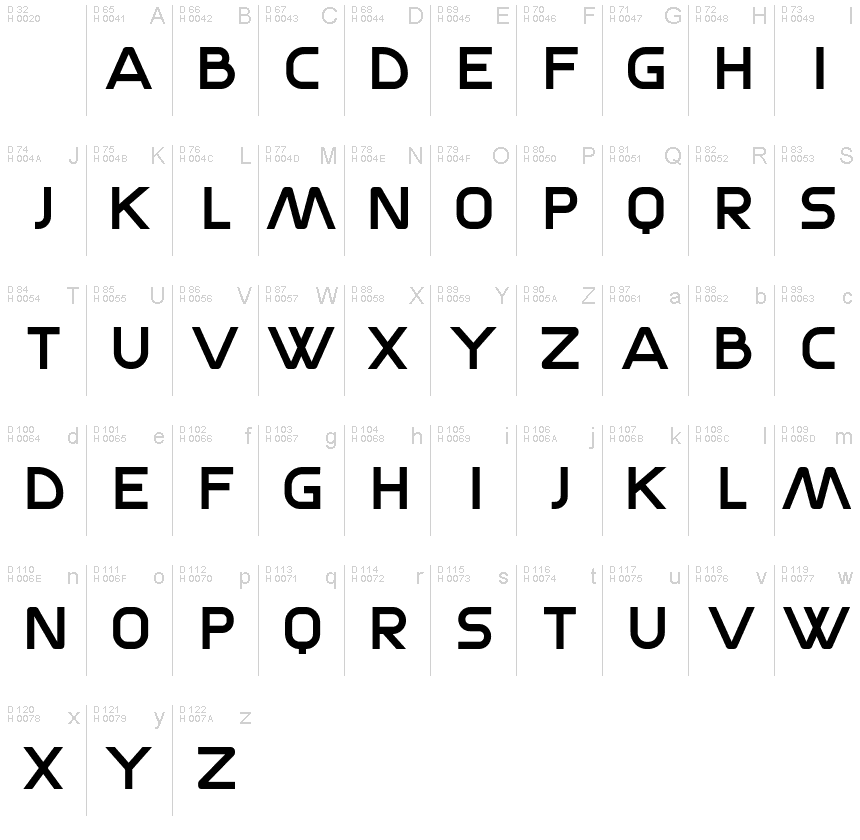
Sage Mondial Regular
Sage Mondial, a unique creation by Vladimir Nikolic, stands out with its semi-expanded sans serif style that blends modernity with a twist of elegance. The font's distinct character is evident in the harmonious balance between its uniform line weight and the subtle expansion of each letterform, which provides a spacious yet assertive aesthetic.
Visually, Sage Mondial exudes a clean and contemporary vibe that is versatile enough for various creative endeavors. Its crisp lines and open forms make it highly legible for both print and digital media, while the semi-expanded width offers an impactful presence that can elevate brand identities, editorial layouts, and sophisticated advertising campaigns.
The font's minimalist design is complemented by just the right amount of character to ensure your projects stand apart. Whether you're crafting eye-catching headlines or seeking a typeface that can carry a complete design piece with grace and strength, Sage Mondial delivers on all fronts with its stylish allure and functional beauty.